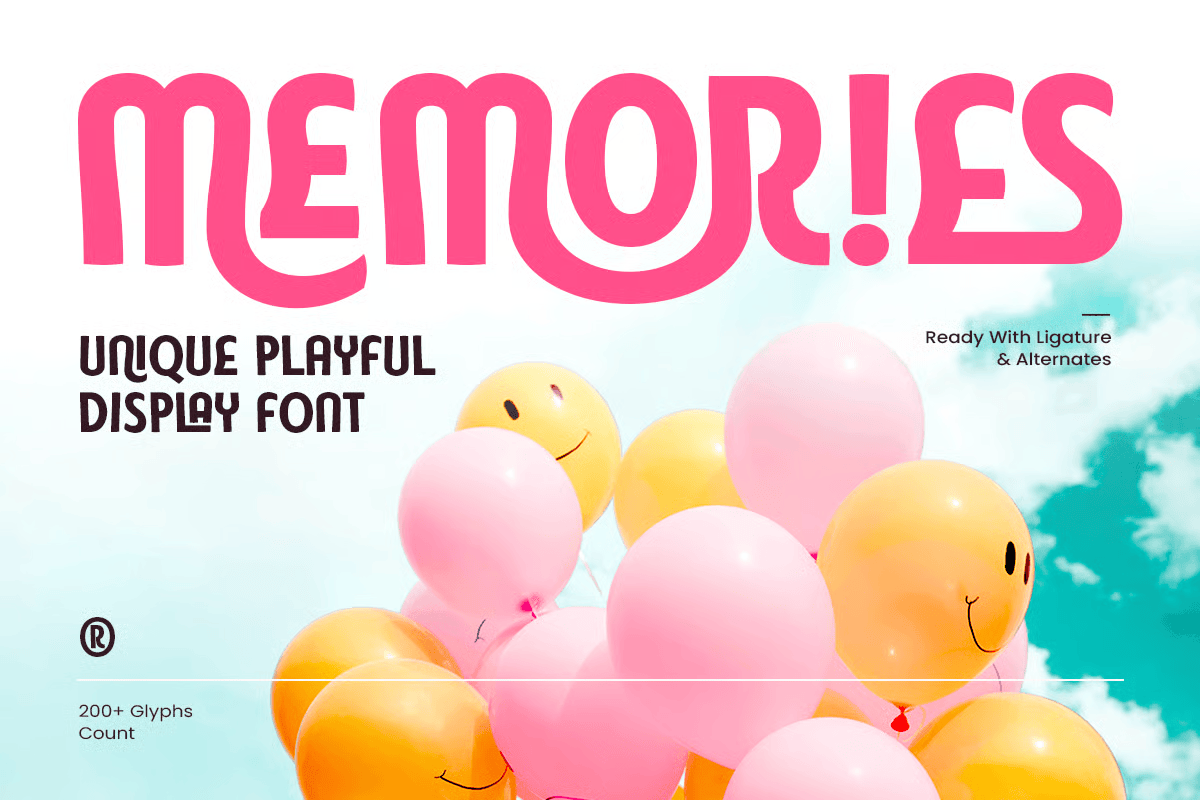
Memories
- Unique Playful Display FontMEMORIES is a unique playful display font crafted to bring joy, personality, and creativity to your design projects. With its fun shapes, expressive curves, and distinctive character design, this typeface instantly adds a lively and youthful vibe to any layout.
Designed for impactful titles and cheerful branding, MEMORIES shines in posters, children’s products, packaging, social media graphics, and creative merchandise. Its quirky form and friendly style make your designs feel approachable, energetic, and full of charm.
Whether used for event visuals, kids’ content, fun advertising, or bold lettering compositions, MEMORIES brings an unforgettable playful aesthetic that stands out across both print and digital applications.
MEMORIES – Unique Playful Display Font Features
Playful and quirky display style with unique characters
Perfect for kids’ projects, posters, branding, packaging, and fun merchandise
Friendly shapes and expressive forms for cheerful modern design
Ideal for social media graphics, event promotions, and creative layouts
OpenType features for enhanced creative flexibility
Bring fun and creativity to your designs with MEMORIES – the perfect playful display font for joyful, expressive typography. 🎉✨